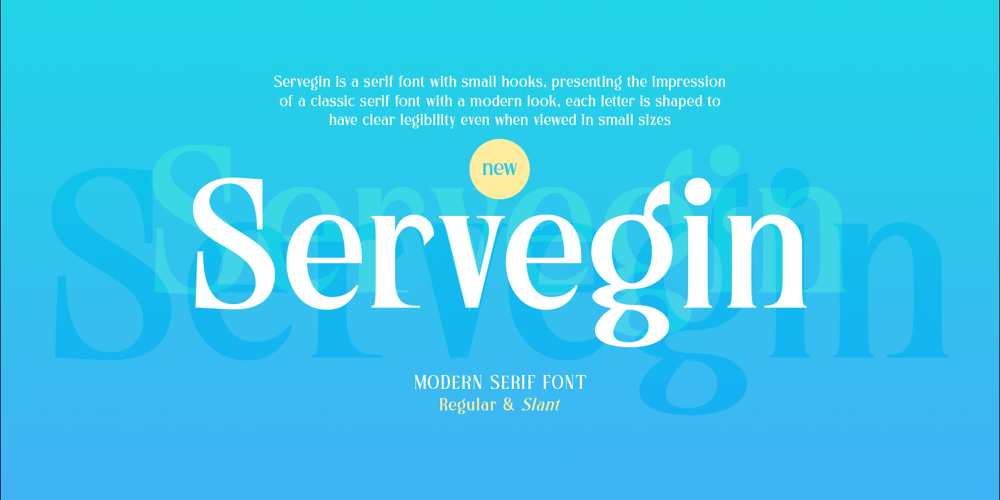
Servegin
Servegin font
Servegin Font Family was designed by Hendry Juanda and published by Letterhend. Servegin contains 2 styles and family package options. Servegin is a sophisticated modern serif font from. This typeface has can be used for modern theme or vintage looks. Very suitable for logo, headline, tittle, and the other various formal forms such as invitations, labels, logos, magazines, books, greeting / wedding cards, packaging, fashion, make up, stationery, novels, labels or any type of advertising purpose.Features : uppercase and lowercase numbers and punctuation multilingual ligatures alternates PUA encoded We highly recommend using a program that supports OpenType features and Glyphs panels like many of Adobe apps and Corel Draw, so you can see and access all Glyph variations. How to access opentype feature : letterhend.com/tutorials/using-opentype-feature-in-any-software/